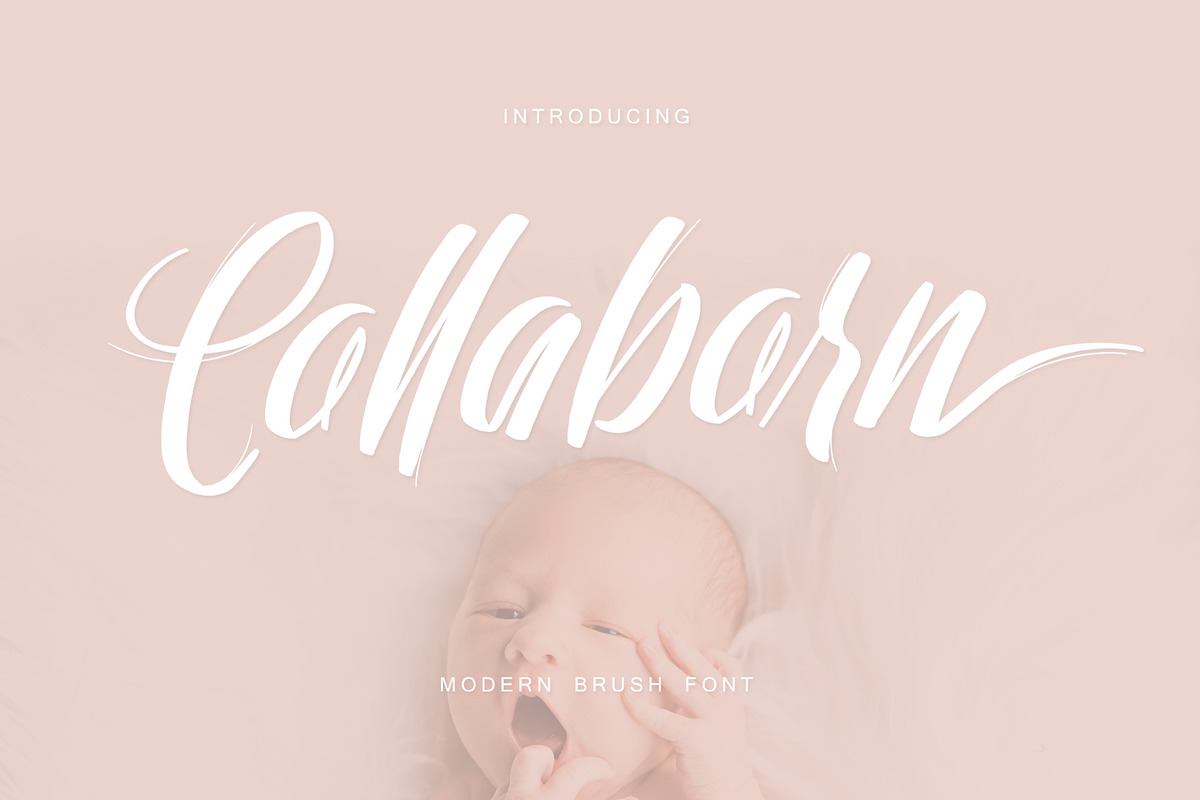
The Collaborn - Modern Brush Fonts excels in logo design, branding projects, artistic posters, hand-lettered quotes, social media graphics, book covers, magazine headlines, packaging design, apparel graphics, restaurant menus, craft projects, and contemporary signage applications.
What makes this font so exciting is its authentic hand-painted brush texture that captures the organic flow and natural imperfections of traditional brush lettering. Collaborn - Modern Brush Fonts combines contemporary design sensibilities with artisanal craftsmanship, creating characters that feel both modern and timelessly elegant. Each stroke maintains the spontaneous energy of brush painting while ensuring excellent legibility across various applications. The font's dynamic baseline and varying stroke weights add personality and movement to any text, making it perfect for brands seeking to convey creativity and authenticity.
This comprehensive typeface family includes Regular, Bold, Light, Italic, Script, Sans, Serif, and Decorative variations. The Regular family offers balanced proportions ideal for general use, while the Bold family provides striking impact for headlines and attention-grabbing elements. The Light family delivers subtle elegance for refined applications, and the Script family features enhanced flourishes and connecting strokes. The Sans variation removes decorative elements for cleaner applications, while the Serif family adds traditional touches to the brush aesthetic.
Designers worldwide are embracing the Collaborn - Modern Brush Fonts Free Download for its exceptional versatility and professional quality. The font features extensive language support, including Western European characters, and includes a comprehensive set of punctuation marks, numerals, and special symbols. Its OpenType features enable advanced typography options like ligatures and alternate characters, allowing designers to create unique, customized looks for each project.
The Collaborn - Modern Brush Fonts transforms digital designs with an authentic, handcrafted aesthetic that resonates with modern audiences seeking genuine, artisanal experiences. Its carefully balanced contrast between thick and thin strokes ensures excellent readability while maintaining the expressive qualities that make brush lettering so appealing. This font bridges the gap between digital precision and analog warmth, making it invaluable for contemporary design projects.